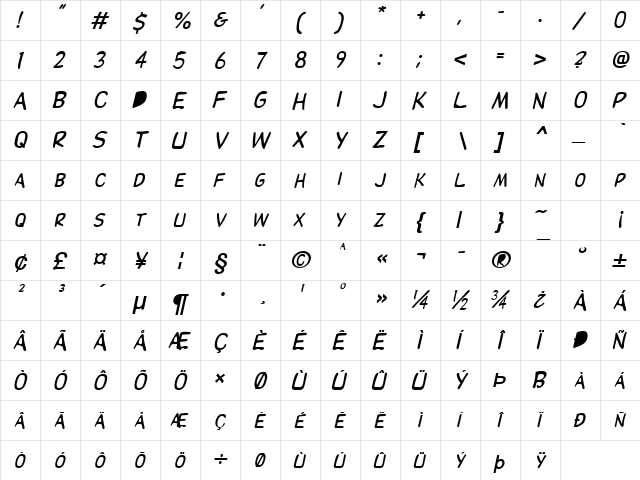
Elizabeth Bold Italic
Design Context for Elizabeth Typeface
Elizabeth takes a measured approach to typography — its balanced proportions and neutral character make it a reliable workhorse for both digital and print work. The slanted form adds forward momentum and visual energy. Its bold stroke weight gives it real presence on the page.
Pro Tip: Try Elizabeth for annotation and caption copy alongside an upright companion — the contrast in angle creates a dynamic but ordered typographic system.